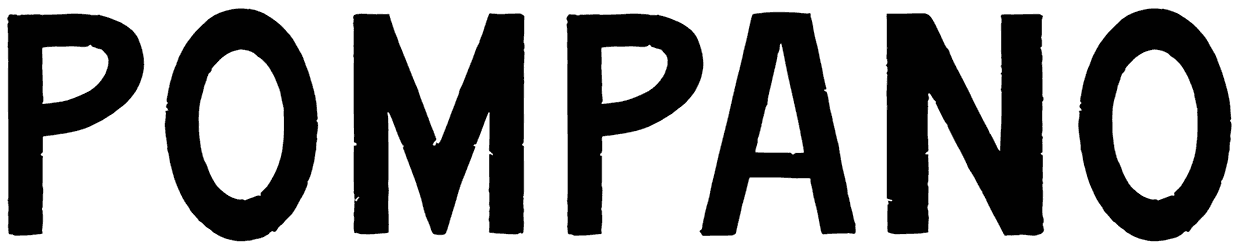
Pompano Font
Pompano is an all-caps eroded font; its high readability and bold letters make it totally perfect for any kind of professional graphic content, including social media posts, video game posters, magazines, billboards, and business cards.
Designed by: Letterhend Studio